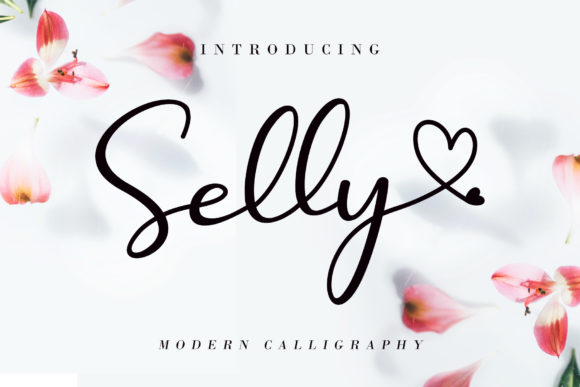
**Selly Font: The Quintessential Script Font for Unforgettable Designs**
In a world of digital monotony, where fonts often blend into a sea of uniformity, Selly emerges as a beacon of creativity, a font that breathes life into your designs. Its graceful strokes, reminiscent of a calligrapher's hand, dance across the page, evoking emotions and captivating attention.
**Experience the Allure of Selly Script**
Selly is not just a font; it's an experience. Its enchanting curves and delicate hearts entwined in its swashes create a visual symphony that elevates your designs to new heights. Whether you're crafting a captivating logo, designing an elegant invitation, or adding a touch of whimsy to your branding, Selly transforms ordinary words into captivating expressions.
**Endless Creative Possibilities**
With Selly's versatility, the creative possibilities are boundless. Its charming style adds a touch of playfulness to children's books, while its sophisticated elegance lends a touch of class to wedding invitations. Selly effortlessly adapts to any project, from eye-catching social media posts to heartwarming personal letters, leaving a lasting impression on your audience.
**Selly: The Key to Unlocking Design Excellence**
Selly is more than a font; it's an investment in your creative journey. Its timeless beauty and versatility will accompany you through countless projects, adding a touch of magic to each one. Embrace Selly's allure, let your creativity soar, and watch as your designs transform into captivating masterpieces.